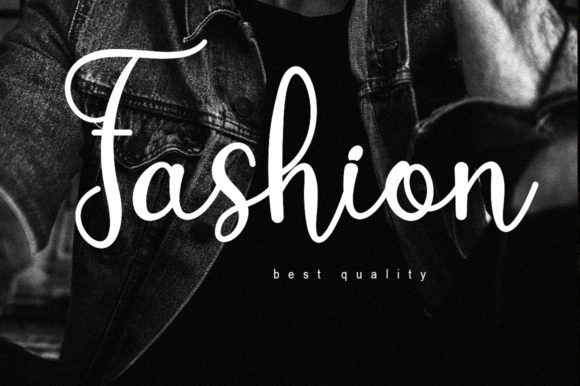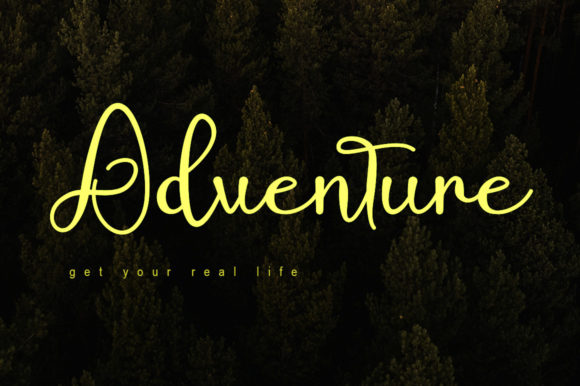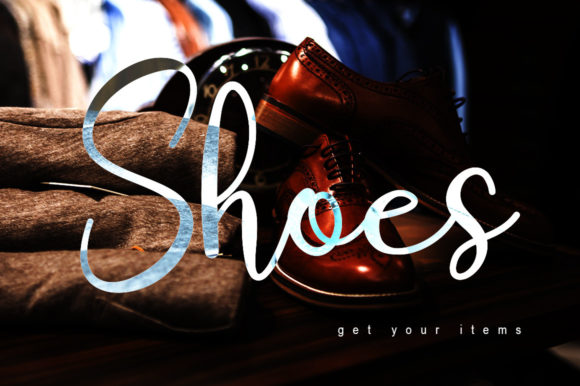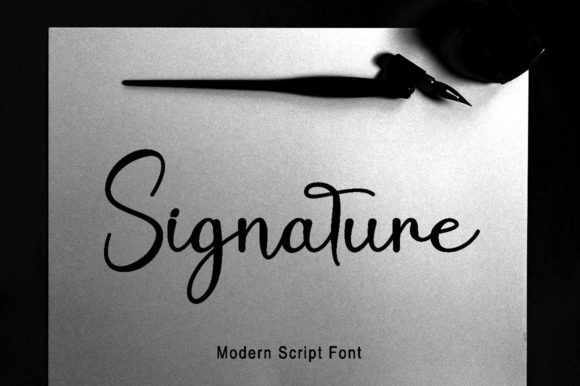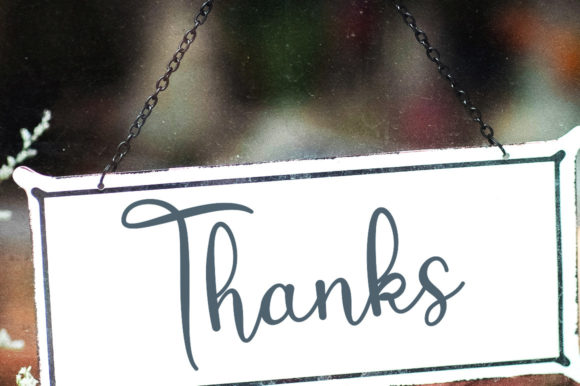
Introduction to Orelly Font
Have you ever stumbled upon a beautiful quote or poem and felt the urge to express it in a creative way? That’s exactly what inspired me to explore the enchanting world of typography. Among the countless fonts available, one stood out to me – the Orelly Font. Its romantic and modern script style creates a captivating atmosphere, perfect for designers seeking to add a personal touch to their projects.
As a valuable design resource, the Orelly Font offers a unique blend of elegance and sophistication. With its flowing characters, it’s ideal for creating eye-catching visuals with a transparent background, allowing your message to shine through. Whether you’re working on a high-quality brochure or a creative project, this font is sure to elevate your design to the next level.
Key Features of Orelly Font
- High-quality design resource with a transparent background, ideal for creative projects that require a touch of elegance.
- Unique characteristics include a modern and sleek design aesthetic, perfect for branding, logos, and other creative applications.
Honest Review: Orelly Font
I recently stumbled upon the Orelly Font and I must say it’s a great addition to any designer’s toolkit. This free download is perfect for anyone looking to elevate their creative project with a high quality font.
- ✨ What works well: The Orelly Font has a unique, elegant design that can easily be used for a variety of projects, from business cards to presentations. Its versatility is definitely a major plus.
- ✨ What works well: The font also comes in a transparent background, which makes it super easy to customize and pair with any background image or color.
As with any font, there are some limitations to keep in mind. The main one is that the Orelly Font is not as extensive as some other fonts in terms of its character set and language support.
- ⚠️ Limitations: If you need to work with a lot of languages or require a font with a large character set, you may find the Orelly Font to be lacking.
Overall, I’d say the Orelly Font is a great design resource that’s definitely worth checking out. It’s perfect for designers who want a high quality font that’s easy to use and customize.